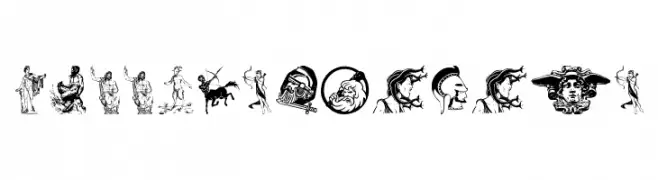
A pictogram dingbat font with eclectic, illustrated symbols.
A pictorial dingbat set featuring dramatic fantasy illustrations.
Iconic dingbat font showcasing Chinese cultural symbols.
A Greek mythology-themed decorative dingbat collection.
Motorsport-themed dingbat font with Formula 1 icons and symbols.
Cartoon animal dingbat font with bold, playful characters.
Cartoon character dingbat font with whimsical, illustrated glyphs.
Hand-drawn kawaii food and kitchen icon dingbat font.
Hand-drawn dingbat font with toy car-themed illustrations.
A playful dingbat font with matryoshka dolls and floral ornaments.